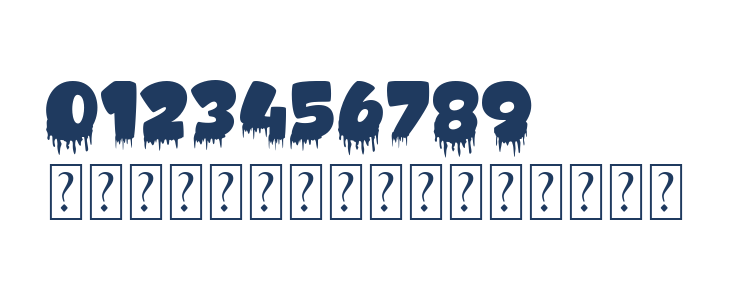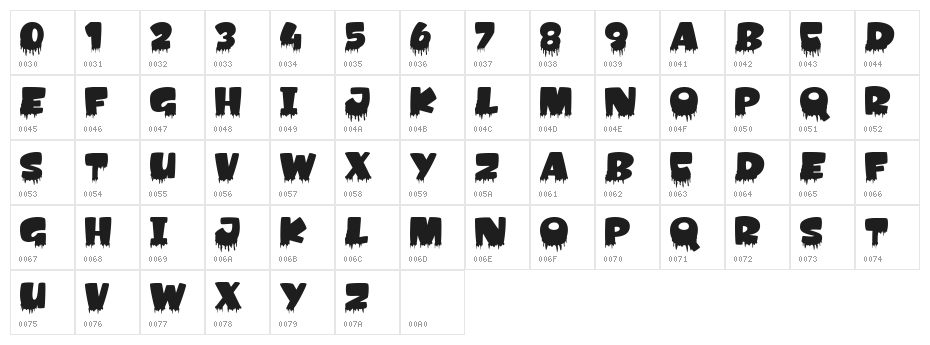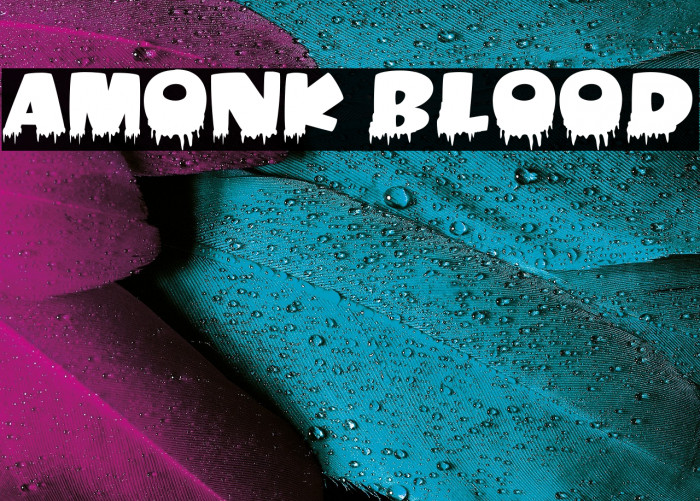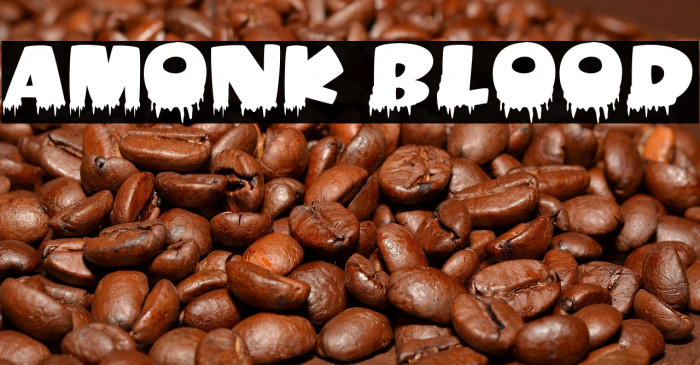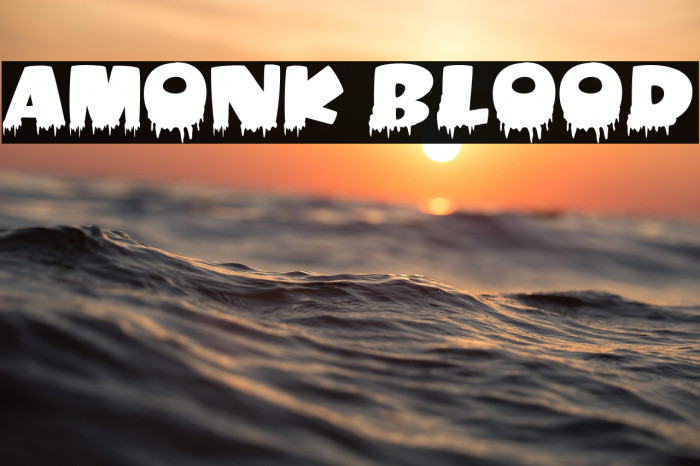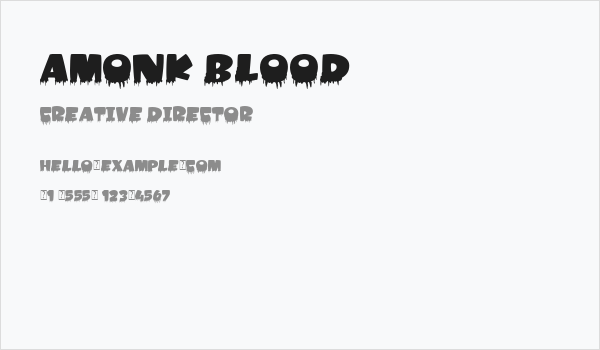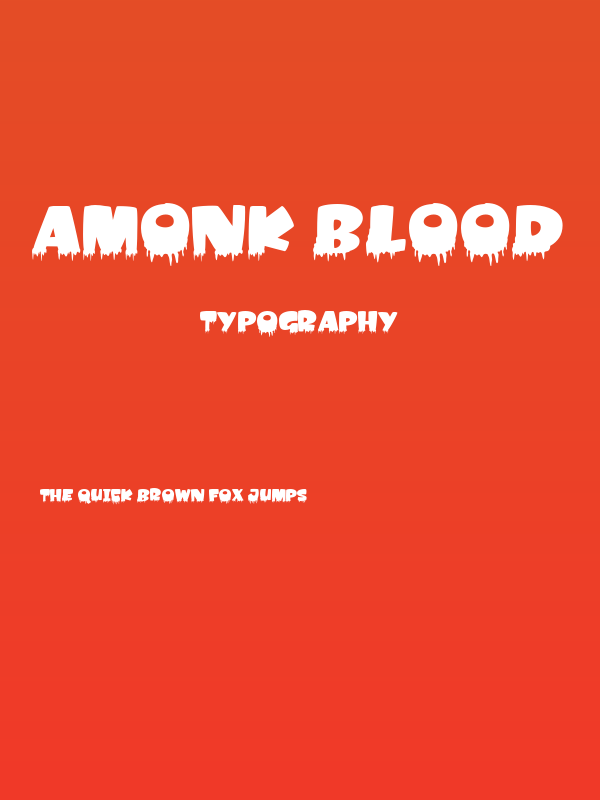
Amonk Blood Font
| Caso d'uso | Headlines, Posters, Themed Events |
| Progetti proposti | Ideal for Halloween party invitations, horror movie posters, haunted house flyers, or any project needing a spooky, dramatic touch. |